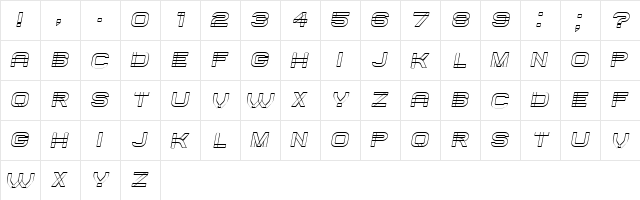
Created Italic
Design Context for Created Typeface
Created is a composed and adaptable typeface that performs quietly and consistently across a wide range of design contexts. The slanted form adds forward momentum and visual energy.